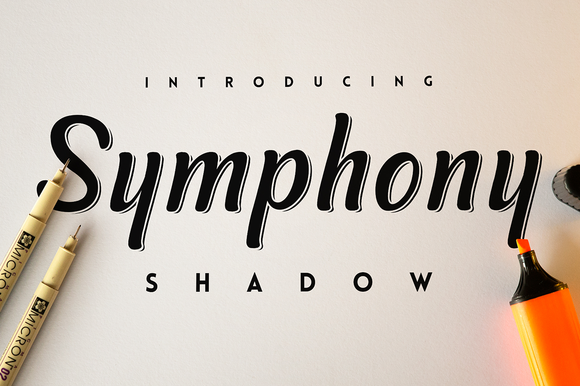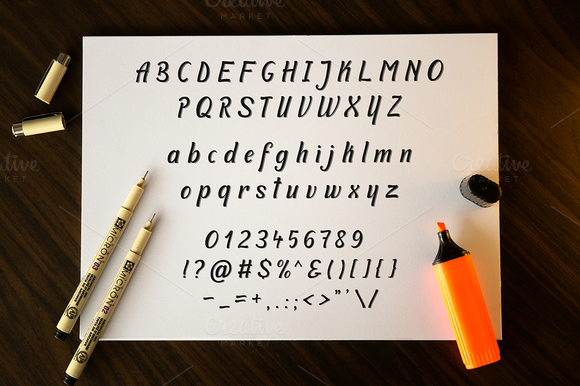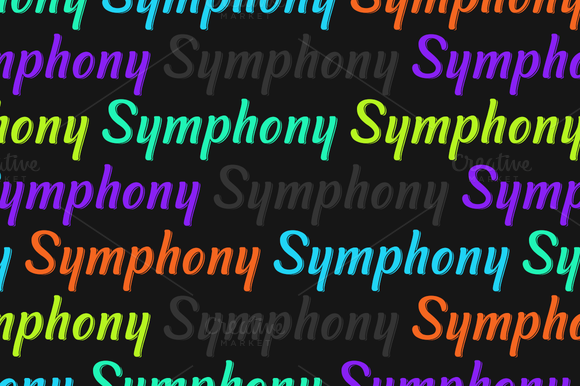
Symphony Shadow Font
About Symphony Shadow Font
Symphony Shadows is a modern script typeface. Symphony Shadows comes with the base glyphs, numbers and characters. It is designed to look good both at small and big sizes.